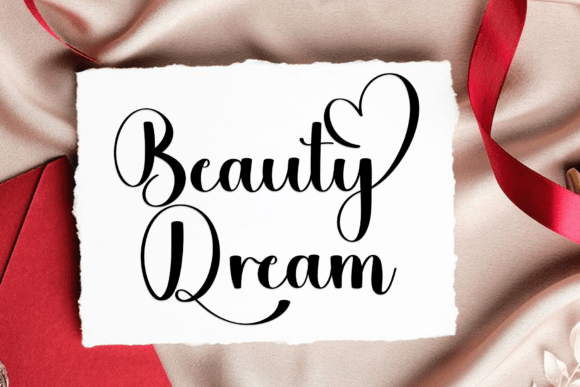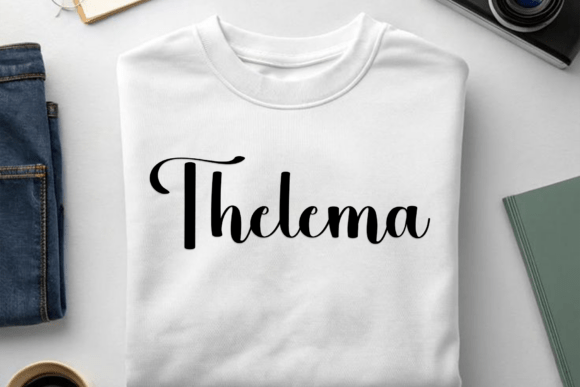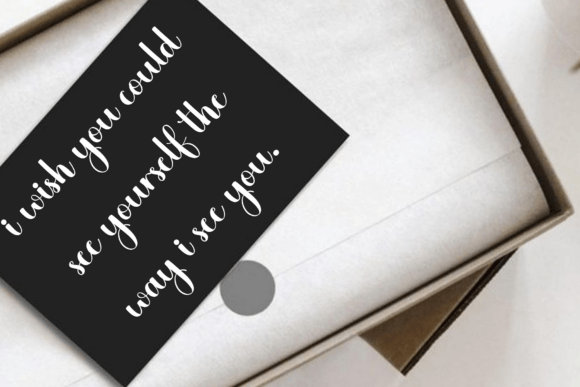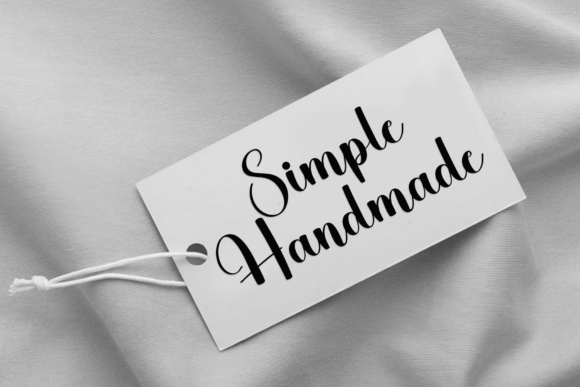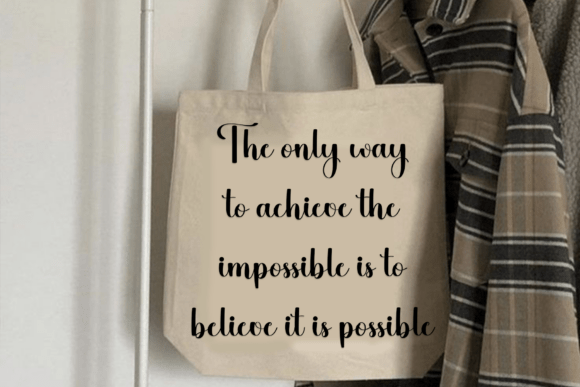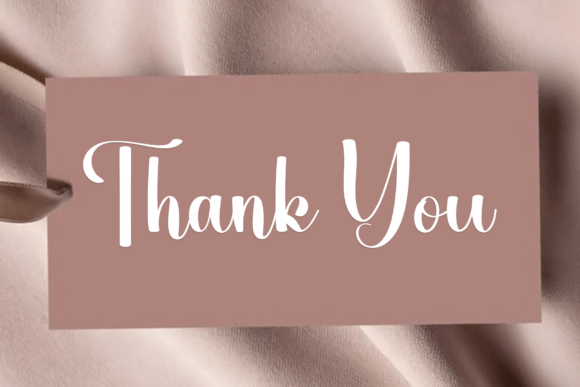
The Daisy Font: A Beautiful Blend of Romance and Modernity
Have you ever been working on a design project, and suddenly, you just can’t seem to find the right font? I recall a particularly frustrating experience while designing a wedding invitation suite. My client wanted a font that was elegant, yet playful; romantic, yet modern. After hours of searching, I stumbled upon the Daisy font, and it was love at first sight! 💕
The Daisy font is a contemporary calligraphy font that embodies the perfect blend of romantic charm and modern flair. With its flowing curves, stylish swashes, and graceful ligatures, this typeface captures the soft, expressive nature of handwritten letters while maintaining digital precision.
A Closer Look at Daisy
So, what makes the Daisy font so special? Let’s dive into its features and explore what I love about it:
- ✨ Flowing curves and stylish swashes: The Daisy font boasts beautiful, flowing curves that give it a sense of elegance and sophistication.
- ✅ Graceful ligatures: The font’s ligatures are carefully crafted to create a sense of continuity and flow, making it perfect for body text and headings.
- 💕 Iconic heart-shaped terminal on the “y”: This charming detail adds a touch of whimsy and romance to the font, making it perfect for wedding invitations, love letters, and other special occasions.
While I absolutely adore the Daisy font, there are a few things to keep in mind:
- ✅ What I love:
- ✨ Beautiful, flowing curves and swashes
- ✅ Elegant and sophisticated feel
- 💕 Charming heart-shaped terminal on the “y”
- ⚠️ Small quirks or limitations:
- 🤔 Some users may find the font a bit too ornate for certain projects
- ⚠️ Limited use of uppercase letters (although the font is designed to be used primarily in lowercase)
The Story Behind Daisy
The Daisy font was designed by a talented type designer who wanted to create a font that embodied the freshness, love, and light-hearted beauty of the daisy flower. With its flowing curves and stylish swashes, Daisy is a tribute to handwritten calligraphy often seen in wedding invitations, personal notes, and artisan branding.
- Q: What is the Daisy font?
- A: The Daisy font is a contemporary calligraphy font designed with a blend of romantic charm and modern flair.